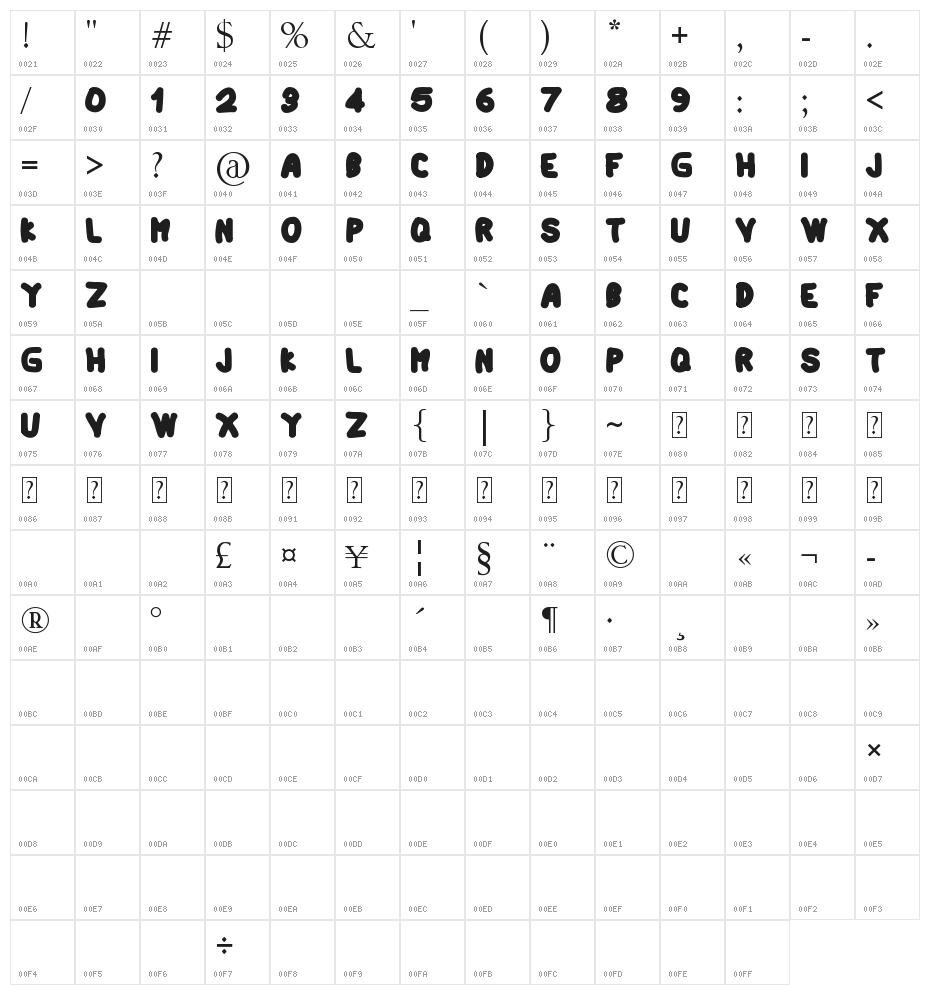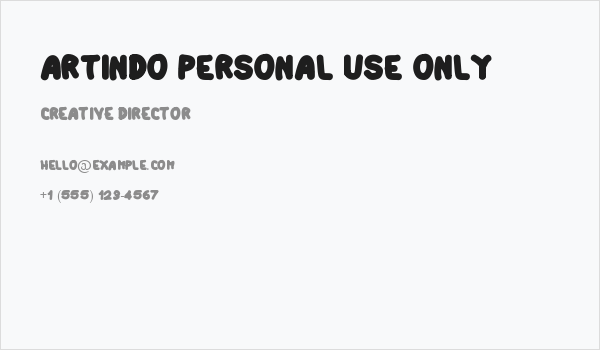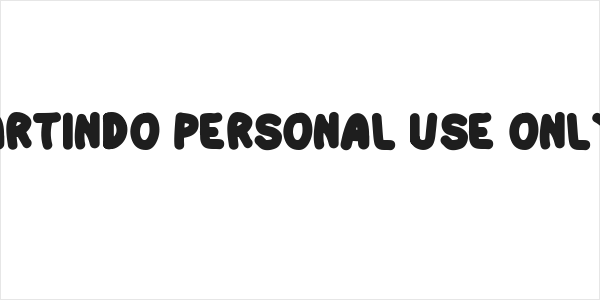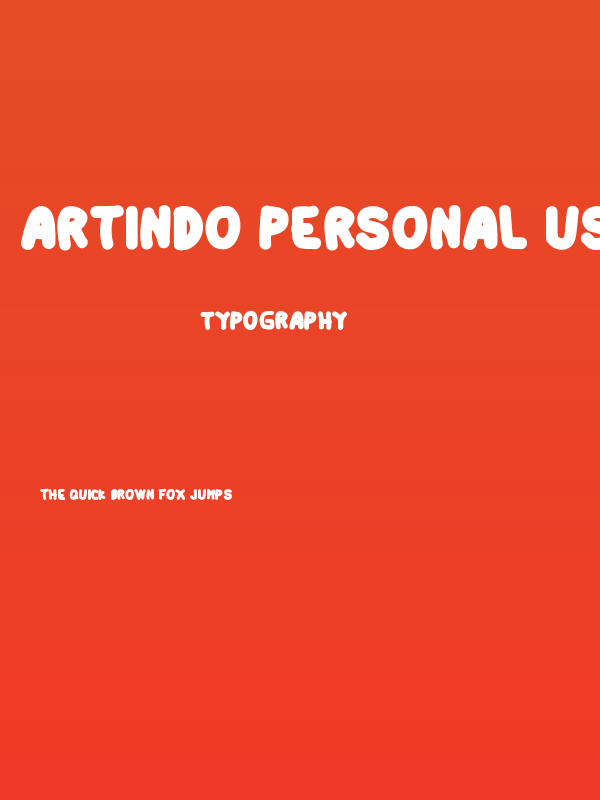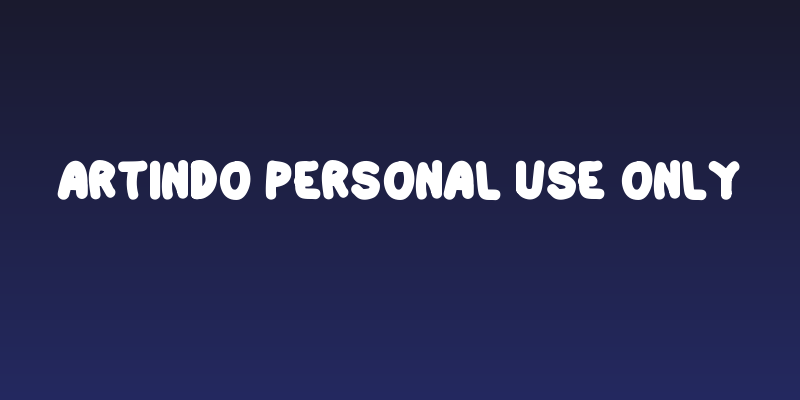
Artindo Personal Use Only Font
Artindo Personal Use Only Description
This playful and bold font features rounded, thick strokes that give it a friendly and approachable appearance. The characters are uniformly bold with a consistent weight throughout, creating a cohesive look. The rounded edges and slightly irregular shapes add a whimsical touch, making it ideal for creative and informal projects. The font maintains a consistent height across all characters, ensuring readability while adding a touch of fun. Its unique style makes it stand out, perfect for designs that aim to capture attention and convey a sense of joy and creativity.
| Proposed Projects | Ideal for children's books, playful branding, event posters, and creative social media graphics. |